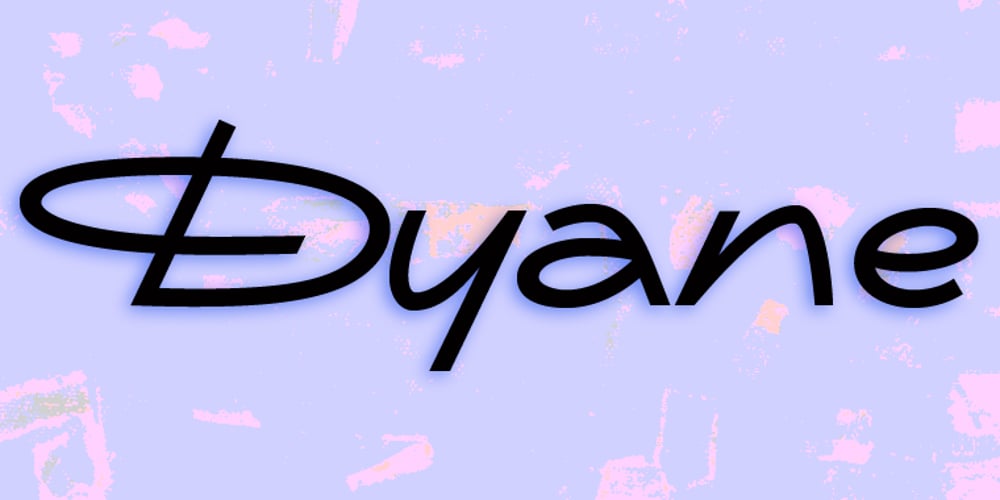
Dyane Font Family was designed by Gert Wiescher and published by Wiescher Design. Dyane contains 1 styles and family package options. Dyane is based on monolinear scripts from the Bauhaus time. But it is very special for ist counterstrokes in the lowercase letters a, h, m and n that gives the script a very distinct rhythm. Your rhythmic type-designer Gert Wiescher